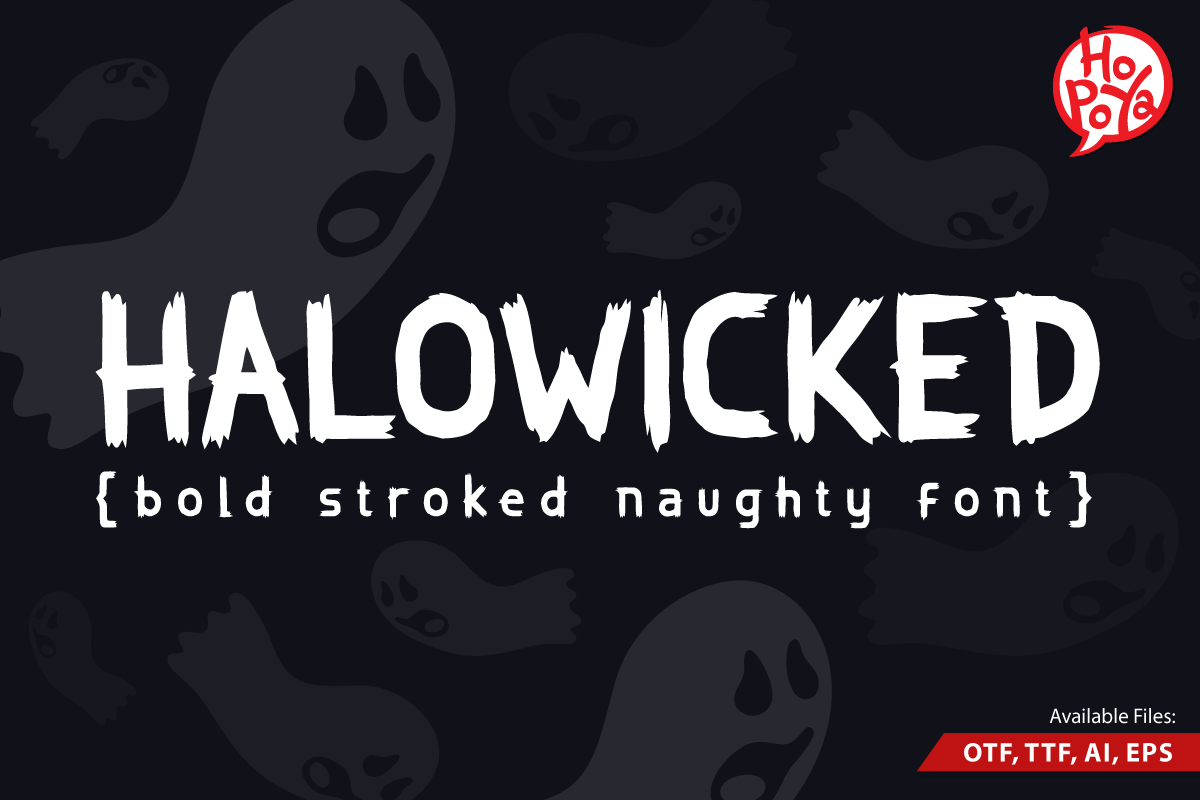
Halowicked Font
Halowicked Font is a simple bold stroked font. Not to rough but it's pretty naughty. Suitable for Apps/ Books/ Games/ Movies Titles, etc. The font includes uppercase and lowercase multilingual letters, numbers ,symbols and punctuation.